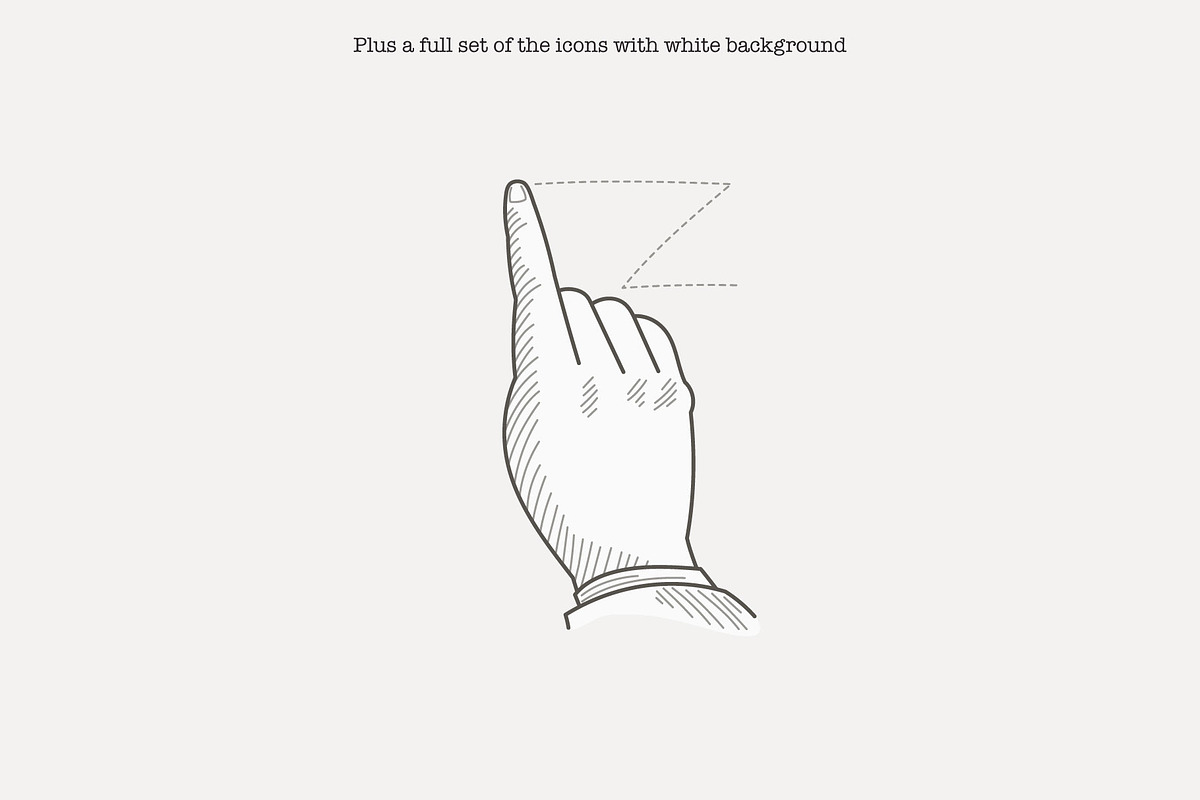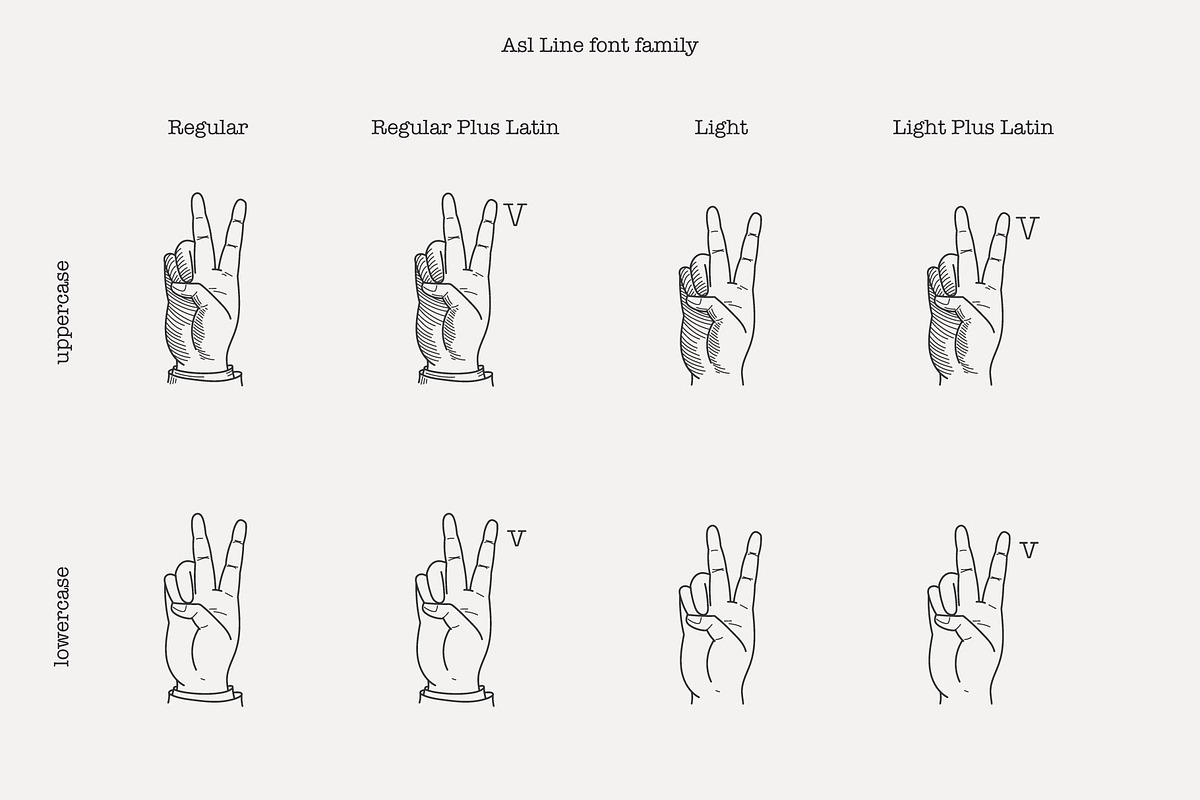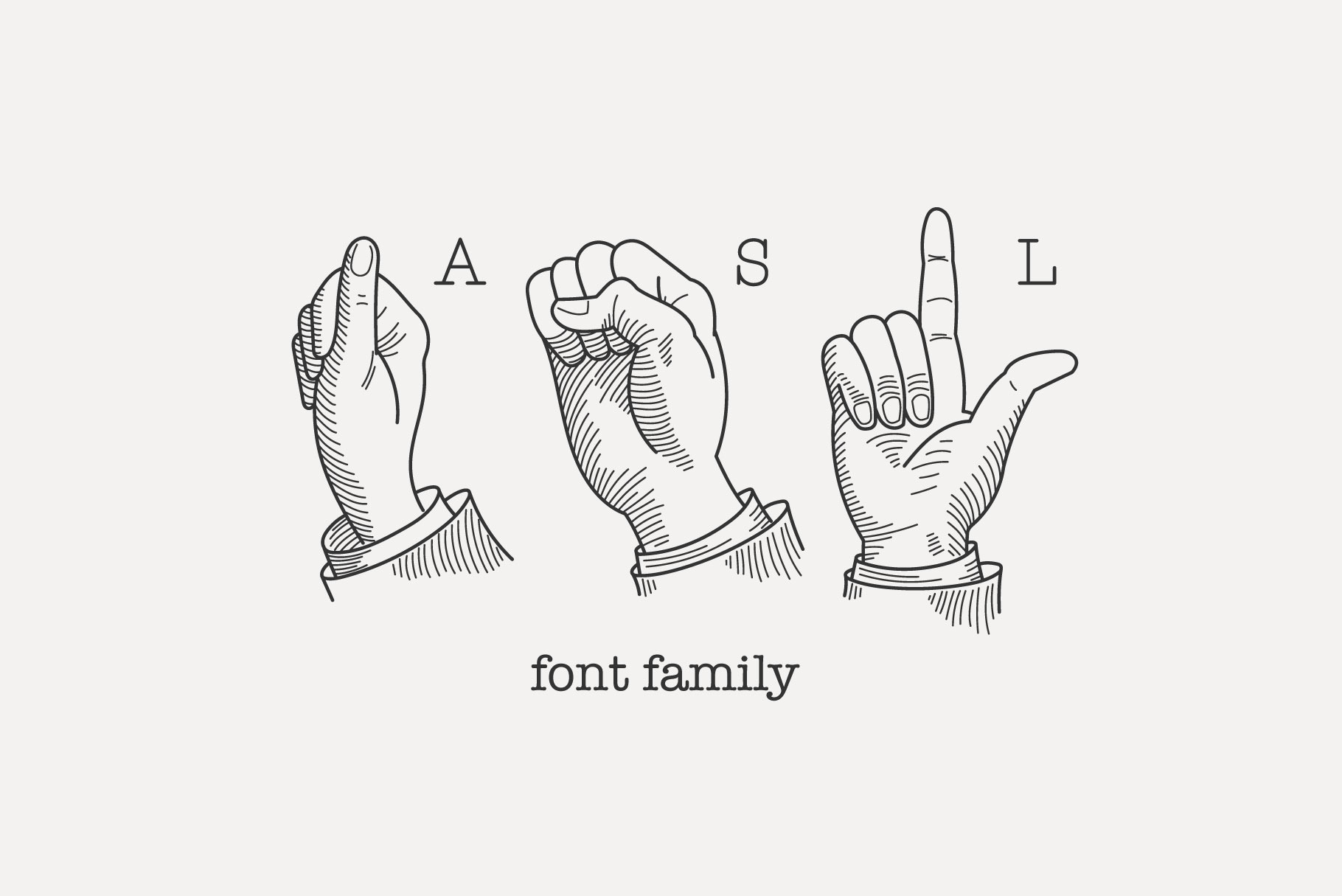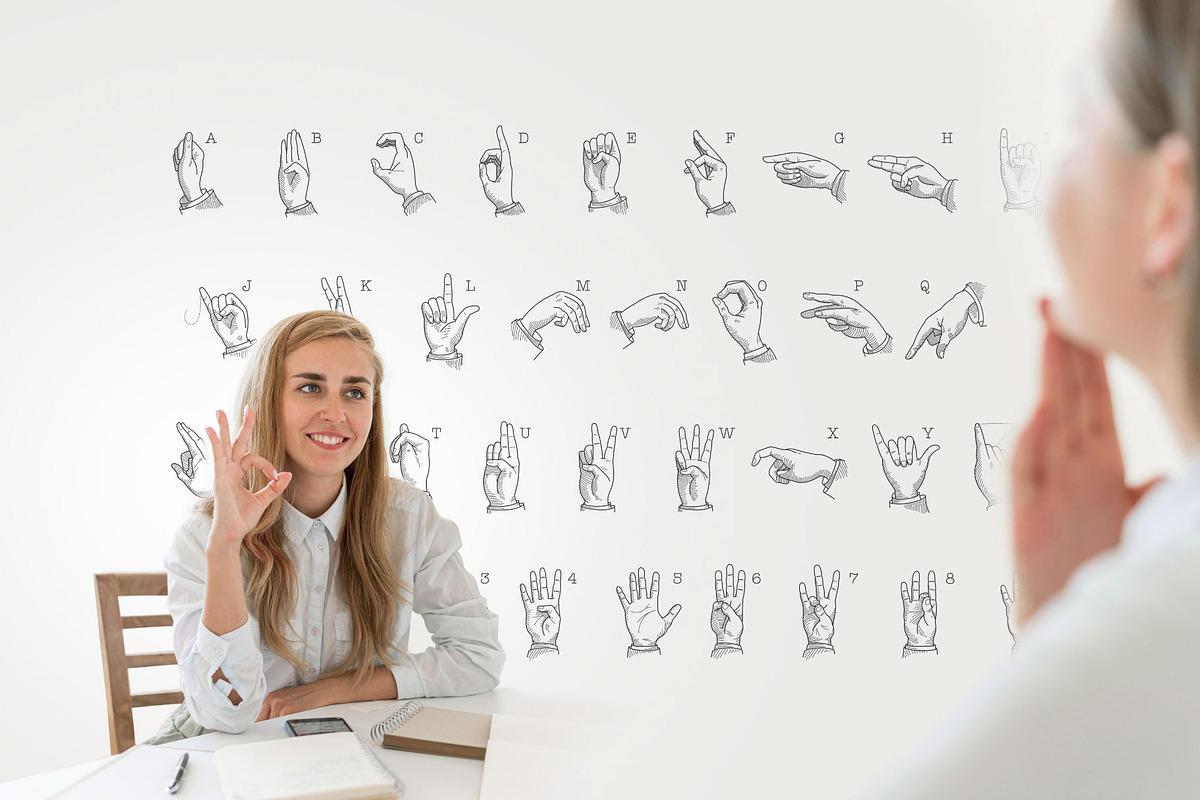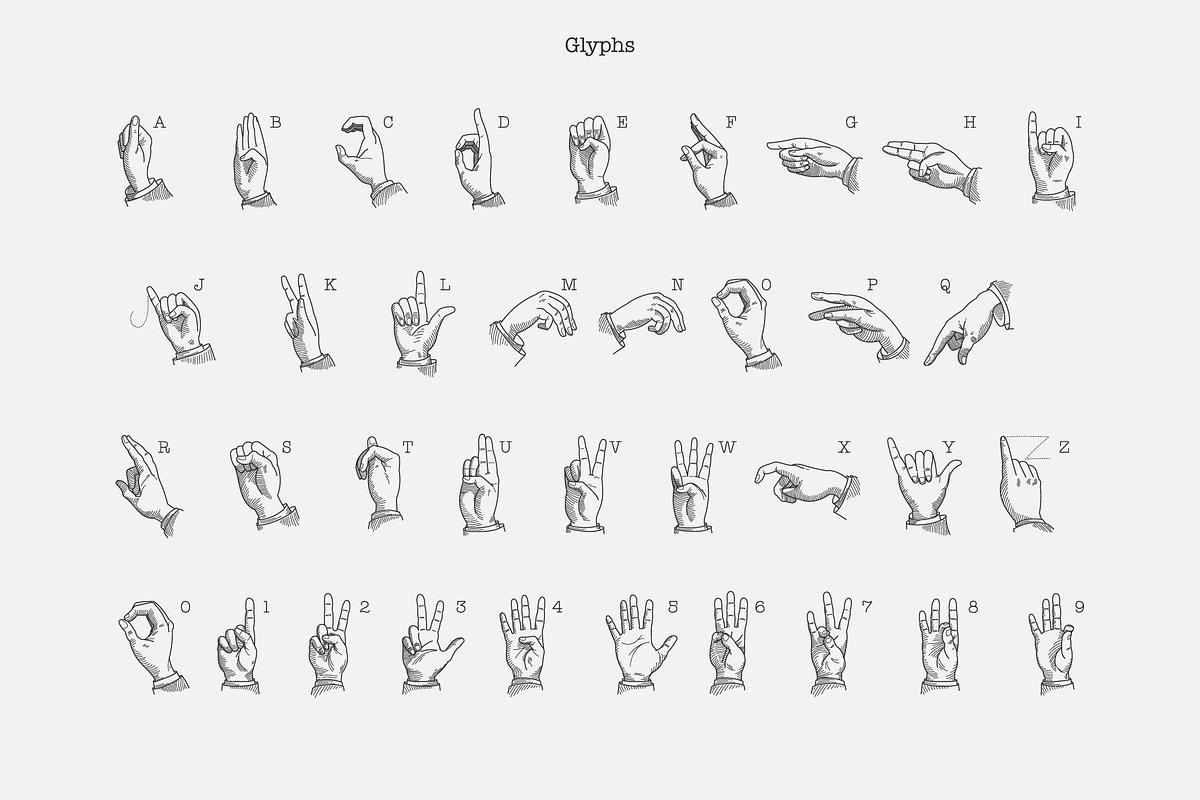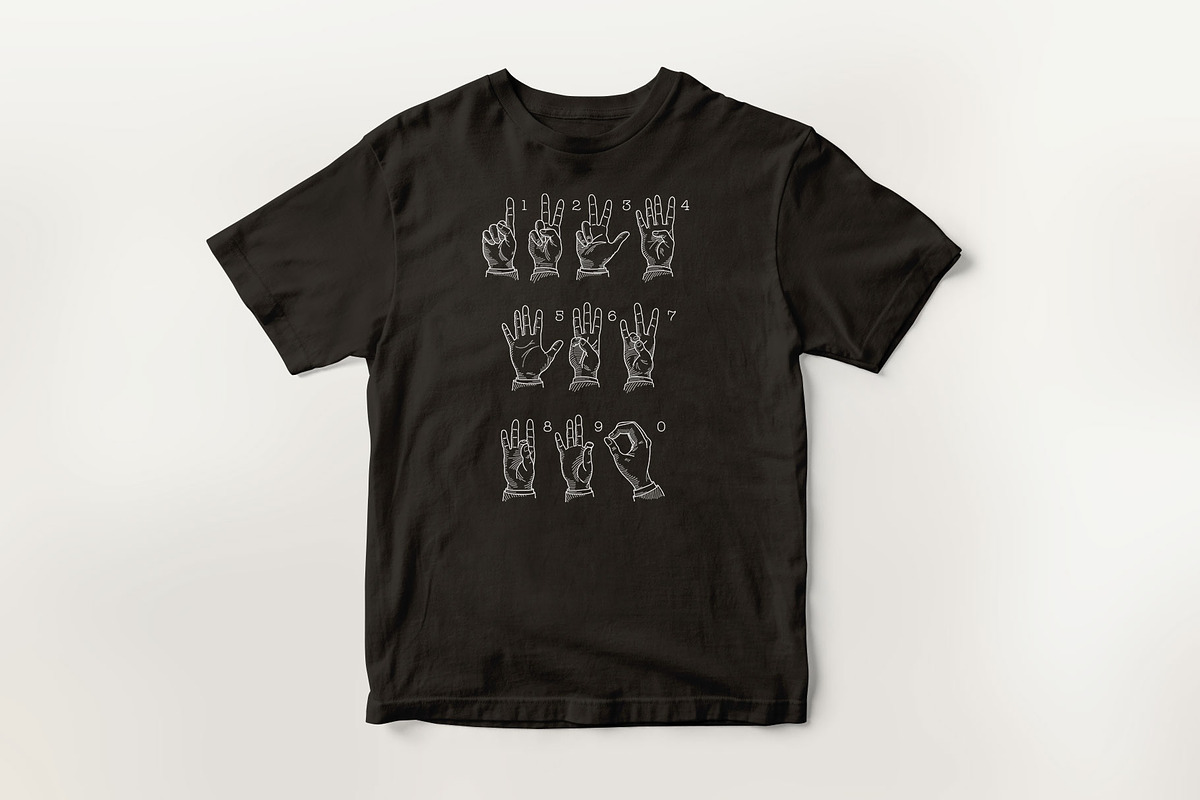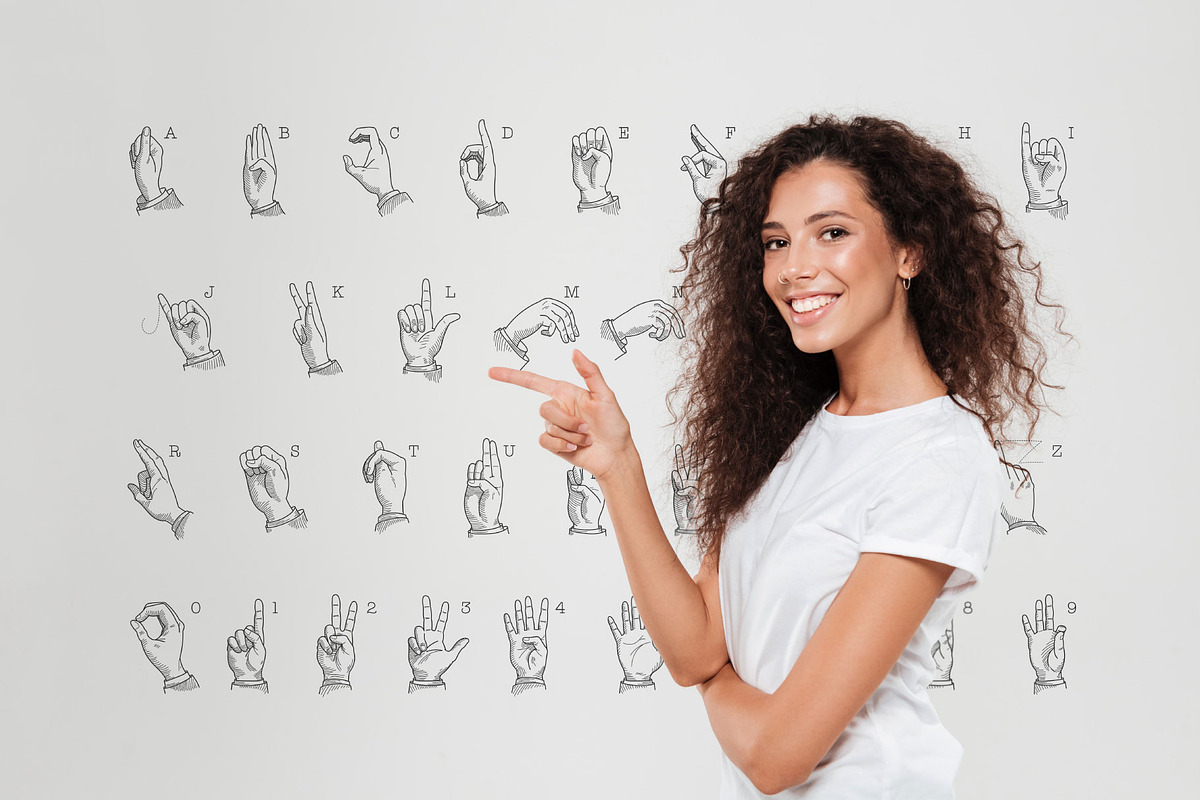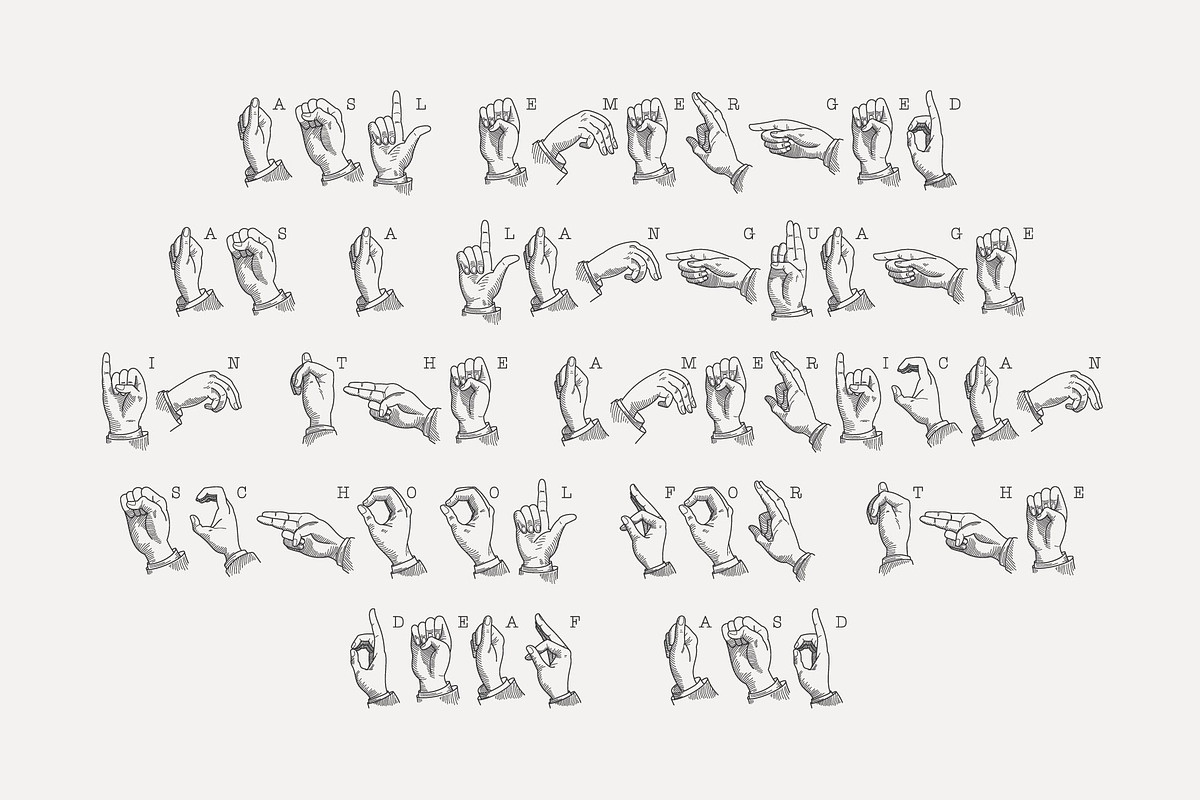
ASL Line font
Hello! Do you need a poster for the ASL study? Maybe you want to understand sign language or share your message. Please try it.
Here is a set of hand-drawn illustrations of American Sign Language (ASL). The font is in 4 styles:
- with sleeves
- with sleeves & Latin symbol
- clear hand
- clear hand & Latin symbol